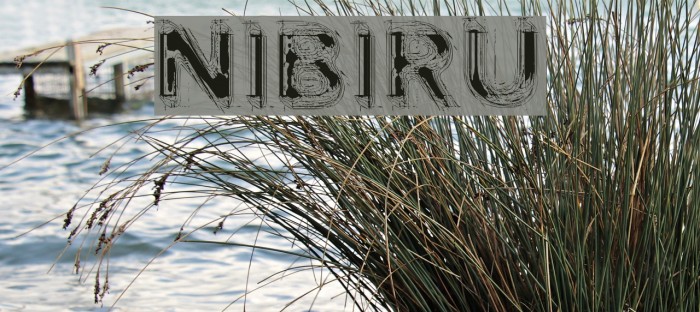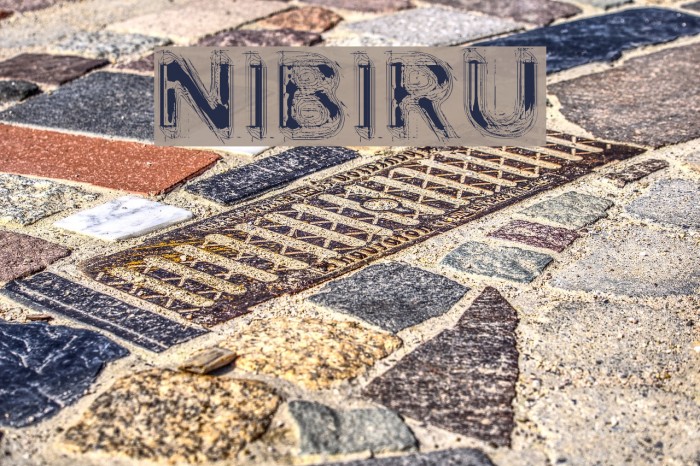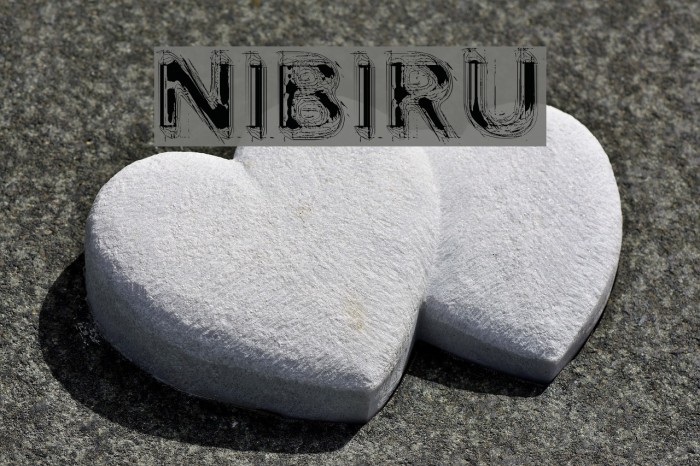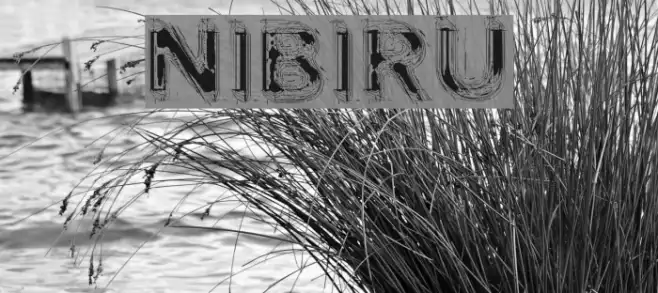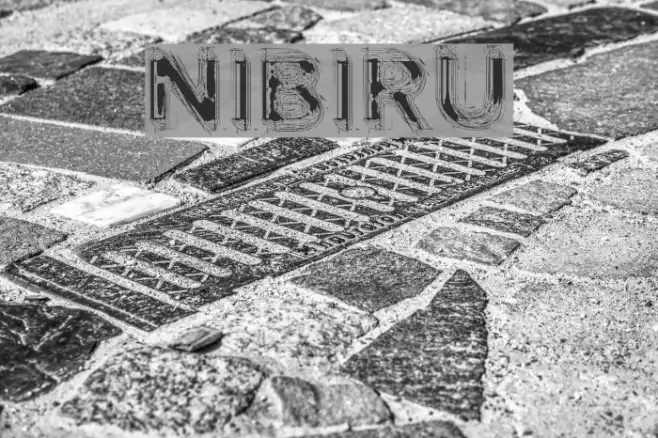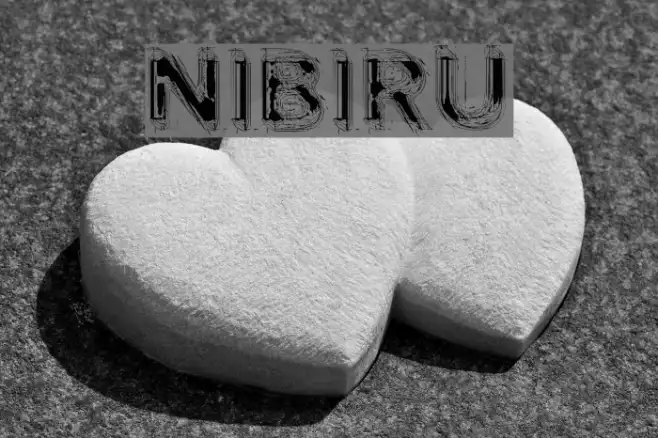
NIBIRU Font
This font features a distressed, textured appearance, giving it a rugged and worn look. The uppercase letters are bold and impactful, with a rough, grunge-like texture that suggests a sense of age and weathering. The font's unique style makes it stand out, with each letter appearing as if it has been eroded or scratched, adding a layer of depth and character. This design choice creates a visually striking effect, making it ideal for projects that require a bold and edgy aesthetic. The font's irregularities and imperfections contribute to its charm, making it suitable for creative and artistic applications.
- Proposed Projects: Ideal for album covers, posters, branding for edgy or alternative products, and any design needing a bold, grunge aesthetic.
- Overall Style: Grunge, Edgy, Artistic
- Use Case: Headlines, Posters, Branding